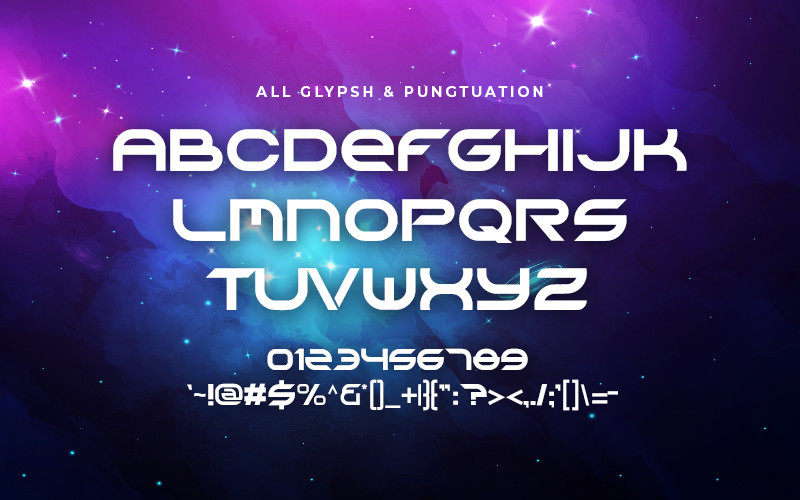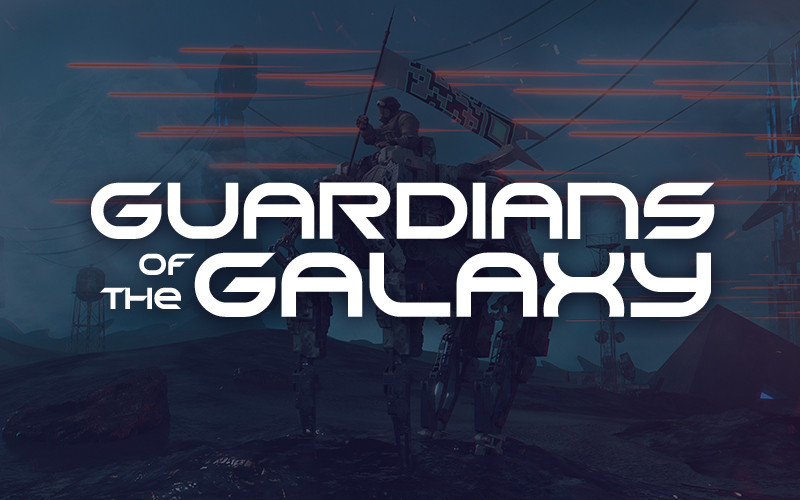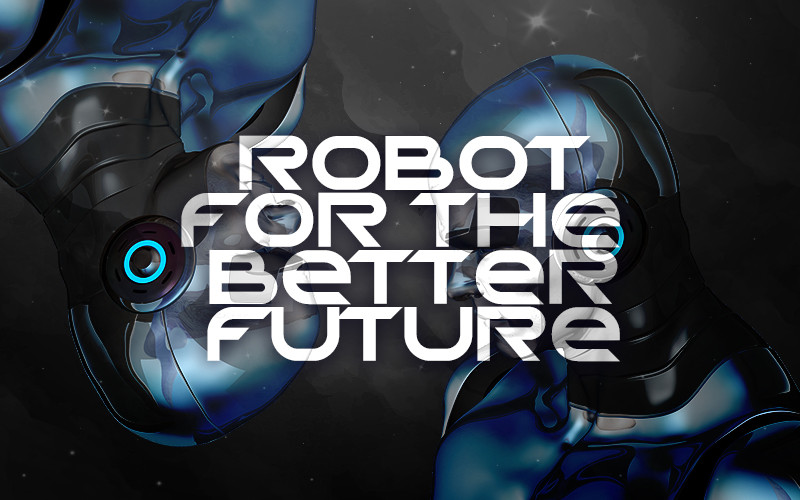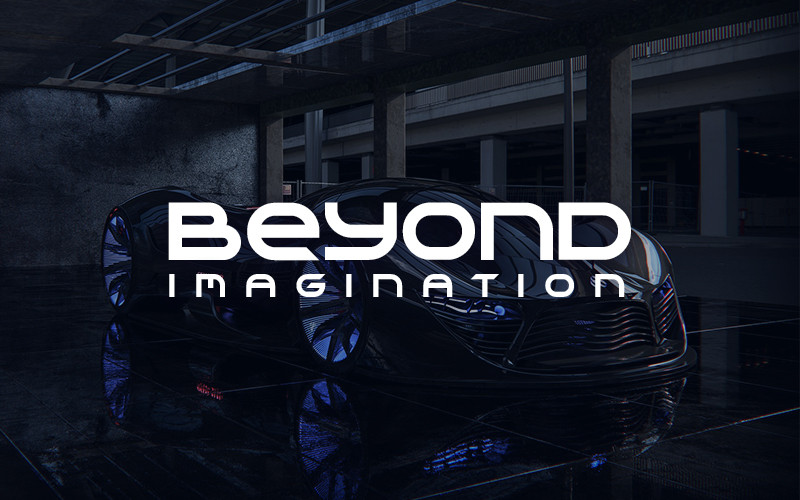
GRAND GALAXY Font
GRAND GALAXY Display Font
It’s a Futuristic techno display typeface with a sharp style. Very well used for Quotes , vlogger preview, logotype designs, fashion web banner, Musician song promotion, restaurant or coffee shop promotion and much more.